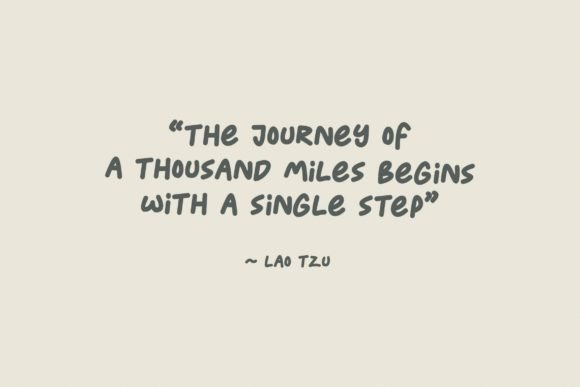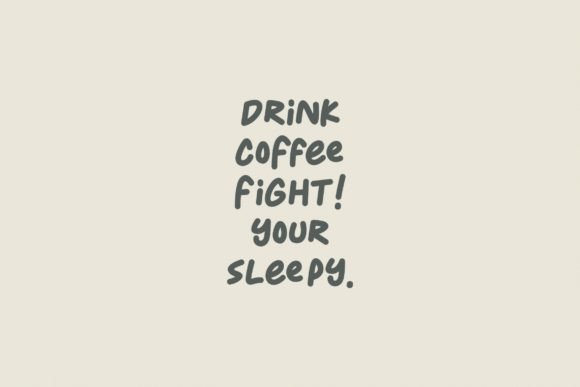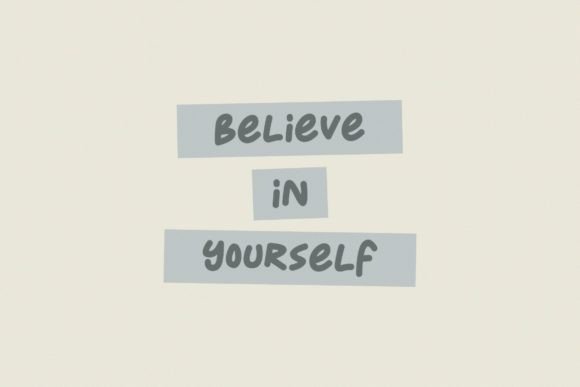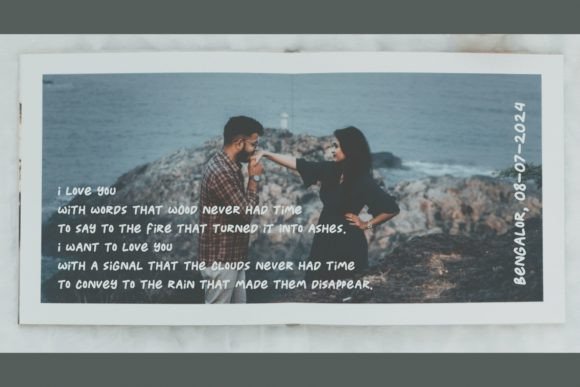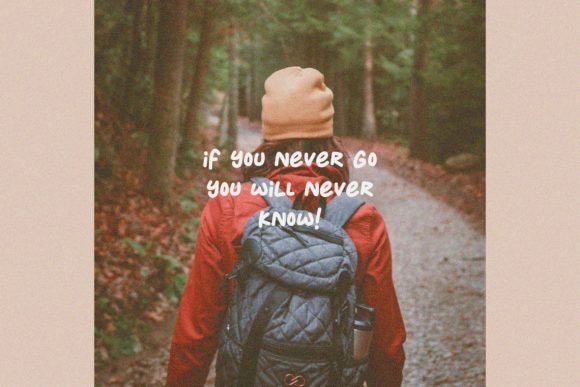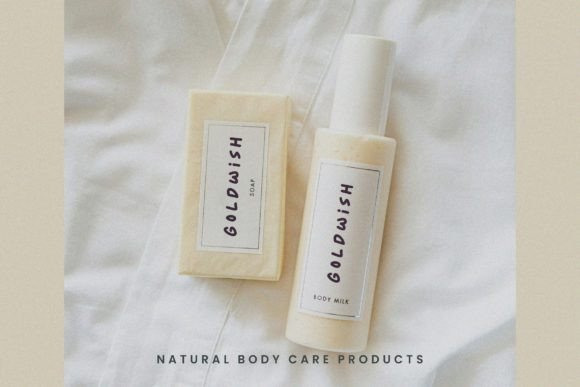
Discover the Delightful World of Goldwish Font
I’ll never forget the moment I stumbled upon the perfect font for a client’s dessert packaging project. It was a game-changer – the font was playful, elegant, and read beautifully. That font was Goldwish, and it has since become a staple in my design toolkit. In this article, I’ll share my love for Goldwish, its features, and how to make the most of this versatile font.
A Personal Review of Goldwish Font
- ✨ Playful yet elegant design: Goldwish has a unique charm that adds a touch of whimsy to any project.
- ✅ Impeccable readability: This font is a joy to read, making it perfect for body text and headlines.
- 💡 Unique standard ligature: The attention to detail in Goldwish is impressive, and the ligature feature adds an extra layer of sophistication.
- 🎨 Versatility: From sweet dessert packaging to food and drink menus, Goldwish adapts seamlessly to various design contexts.
While Goldwish is an excellent font, there are a few minor considerations to keep in mind:
- 🤔 Limited use of all-caps: While Goldwish looks great in uppercase, it’s not the most optimal choice for lengthy all-caps text.
- ⚠️ Occasional kerning issues: As with any font, some kerning adjustments might be necessary, especially when using Goldwish for large blocks of text.
The Story Behind Goldwish Font
Goldwish was designed with the intention of creating a font that would bring joy and playfulness to various design projects. The designer aimed to craft a font that would excel in detail, readability, and versatility. Through careful attention to typographic details and a passion for creating something unique, Goldwish was born.
Q: What makes Goldwish suitable for dessert packaging?
A: Goldwish’s playful yet elegant design, combined with its impeccable readability, makes it an excellent choice for dessert packaging and other food-related projects.
Q: Can I use Goldwish for digital interfaces?
A: Absolutely! Goldwish’s clean design and readability make it suitable for various digital interfaces, including websites and mobile apps.
Q: Does Goldwish support OpenType features?
A: Yes, Goldwish supports OpenType features like ligatures, glyphs, and stylistic alternates, allowing you to add an extra layer of creativity to your designs.
In conclusion, Goldwish is a delightful monoline font that can elevate your creative projects with its unique charm. With its versatility, readability, and attention to detail, Goldwish is an excellent addition to any design toolkit. Enjoy exploring the possibilities with Goldwish, and discover the magic it brings to your designs!